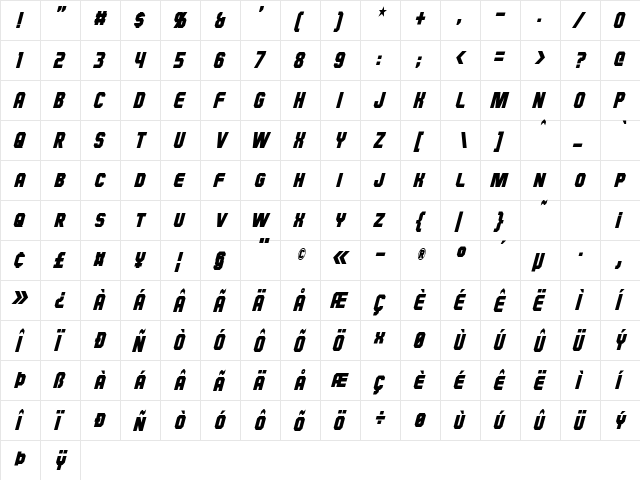
Hauser Condensed Italic
Design Context for Hauser Condensed Typeface
Hauser Condensed takes a measured approach to typography — its balanced proportions and neutral character make it a reliable workhorse for both digital and print work. Its italic angle brings a sense of urgency and motion to the letterforms. The condensed width makes it efficient for tight spaces without sacrificing legibility.
Pro Tip: Try Hauser Condensed for annotation and caption copy alongside an upright companion — the contrast in angle creates a dynamic but ordered typographic system.